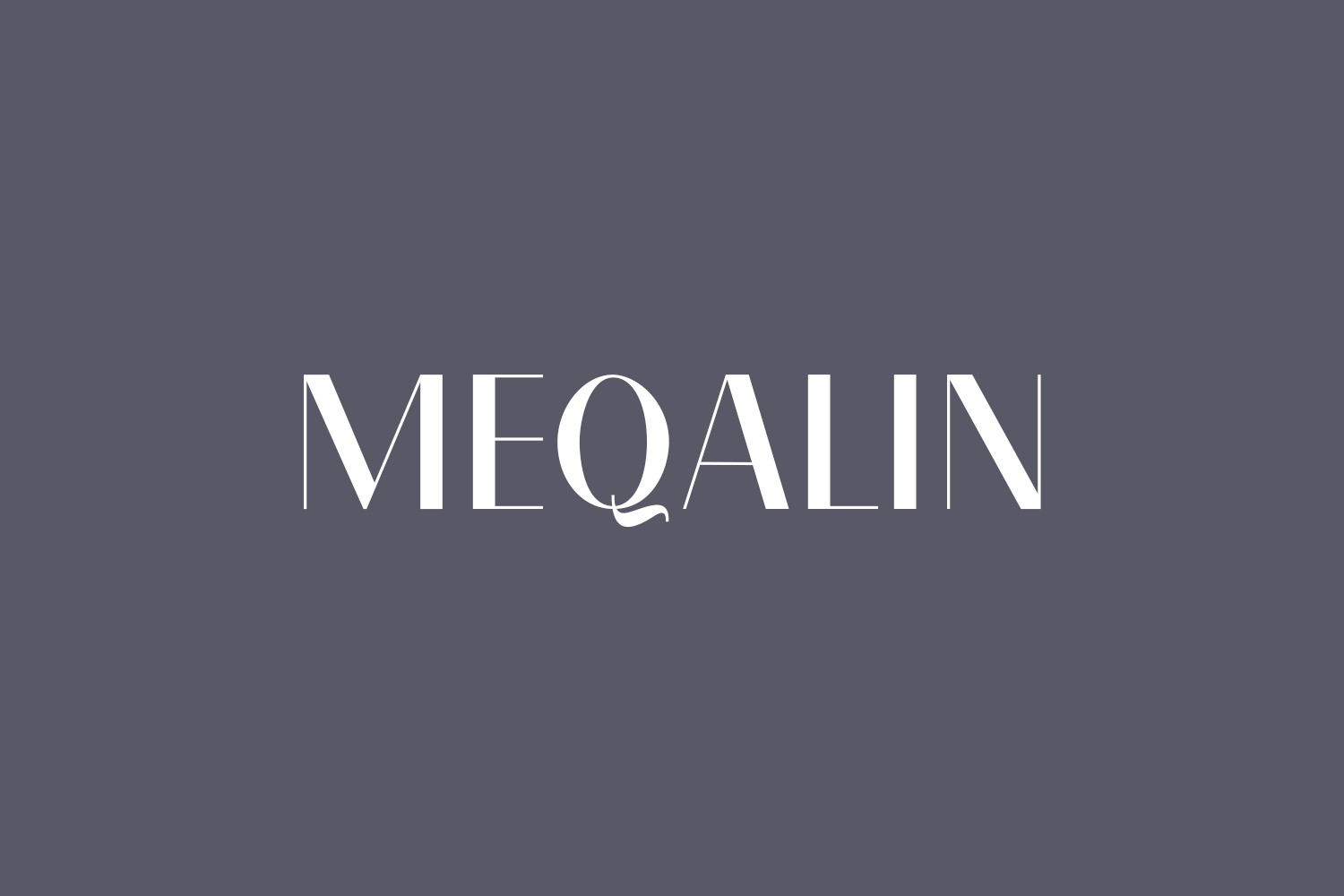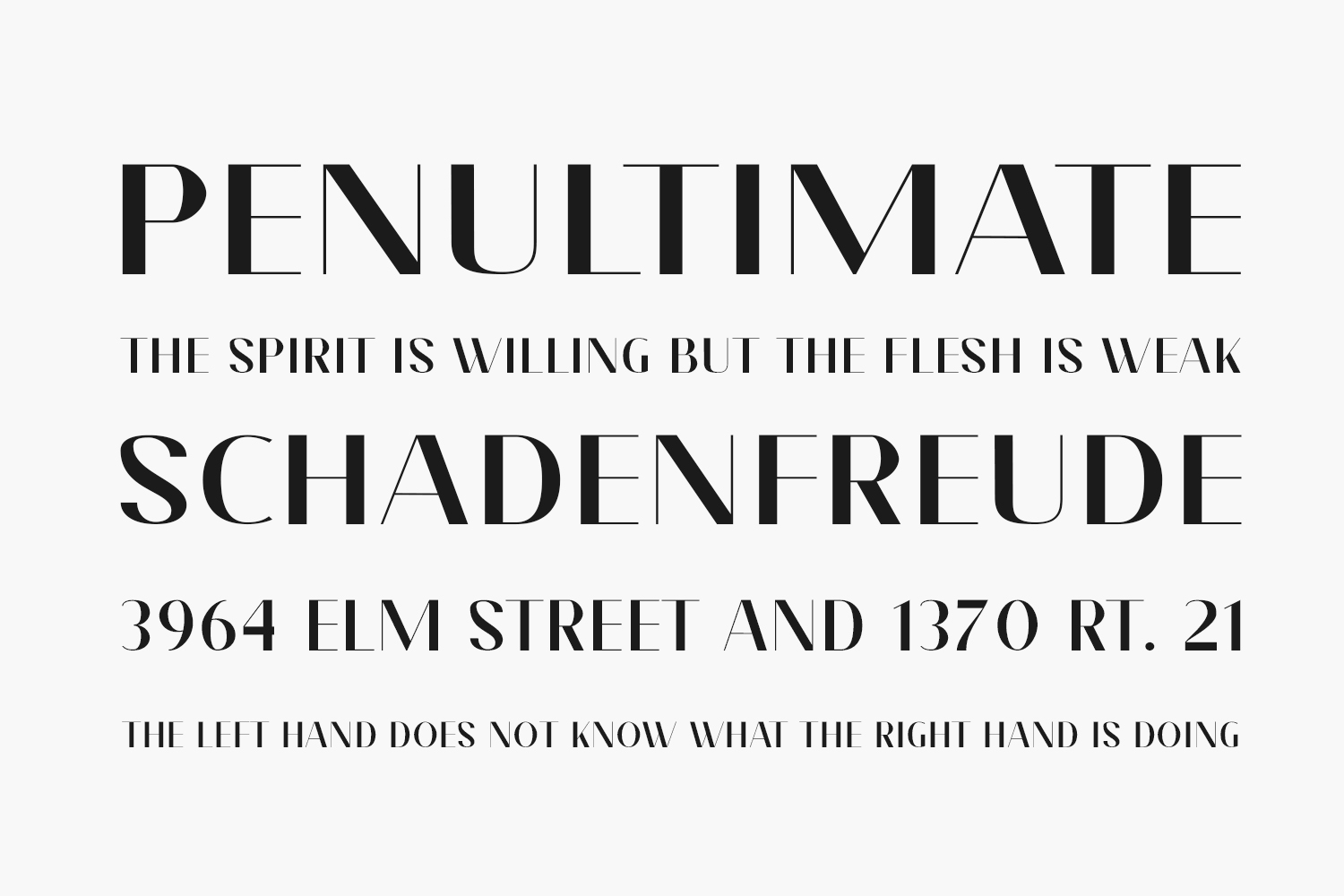
Unveil the boldness of Meqalin Free Font, a chic and confident sans serif font. With just the right dose of contemporary flair, this font injects vibrancy into your designs, bringing them to life. Download the font for free if you need it for personal use or purchase the full version for commercial use.